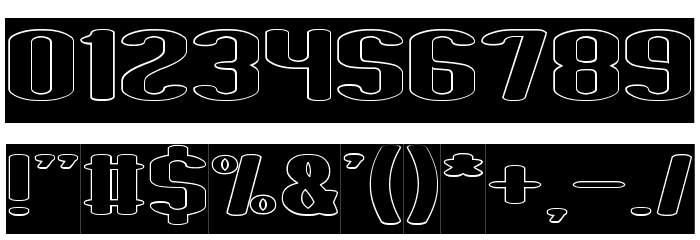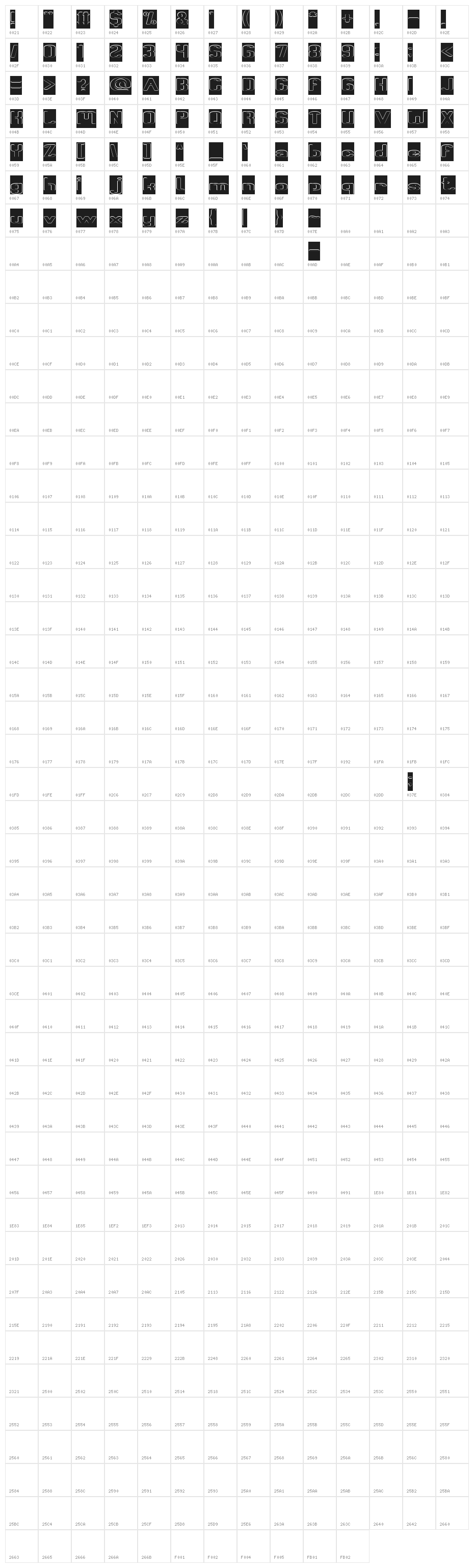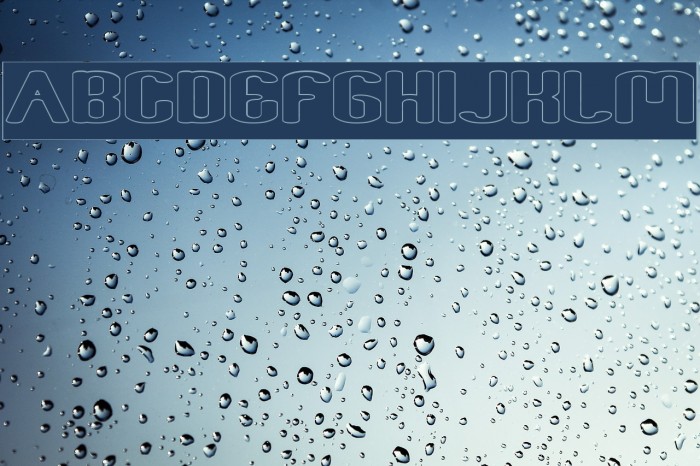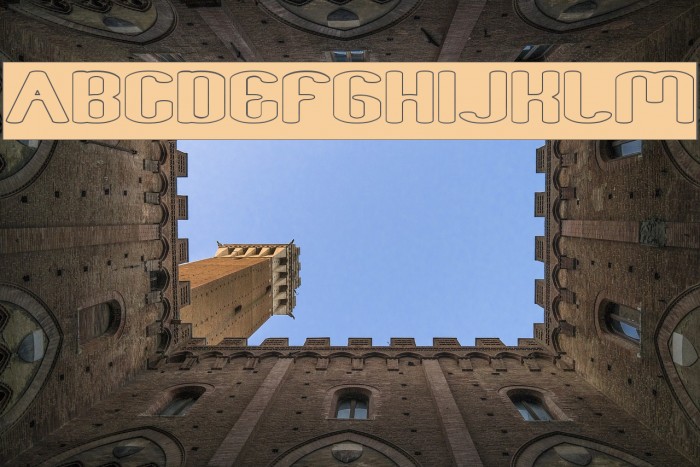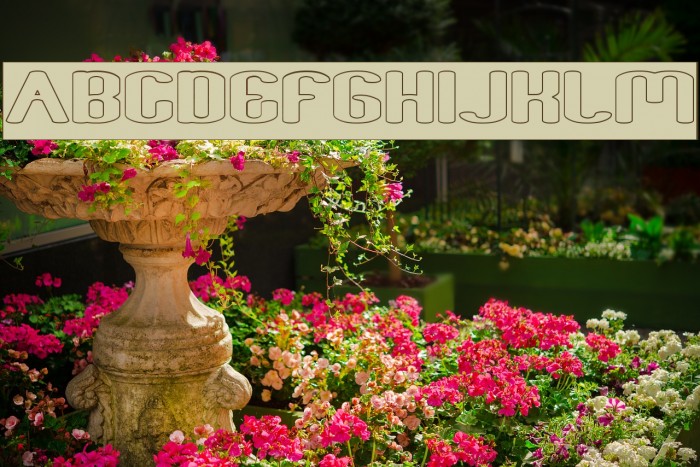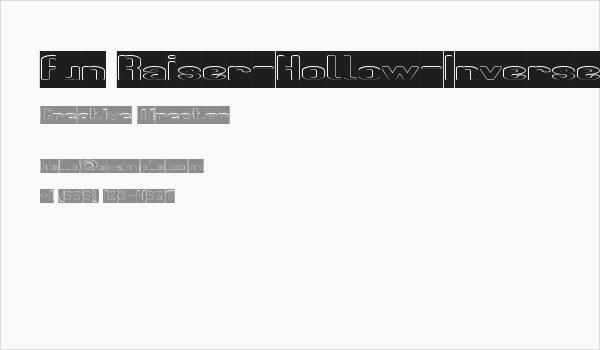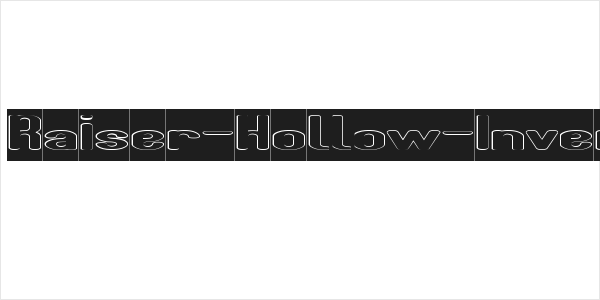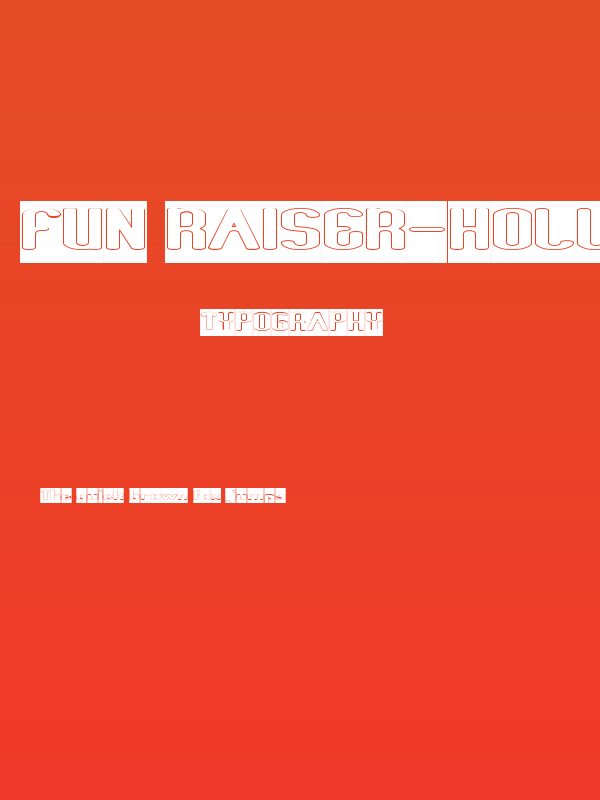
Fun Raiser-Hollow-Inverse Font
Fun Raiser-Hollow-Inverse Description
This font features a unique hollow design with an inverse style, where the interior of each character is transparent, creating a striking visual effect. The characters are bold and have a playful, rounded appearance, making them stand out against any background. The uppercase and lowercase letters maintain a consistent style, with smooth curves and a modern aesthetic. Numbers and special characters are included, each following the same hollow and rounded design. This font is ideal for creative projects that require a bold and eye-catching typeface.